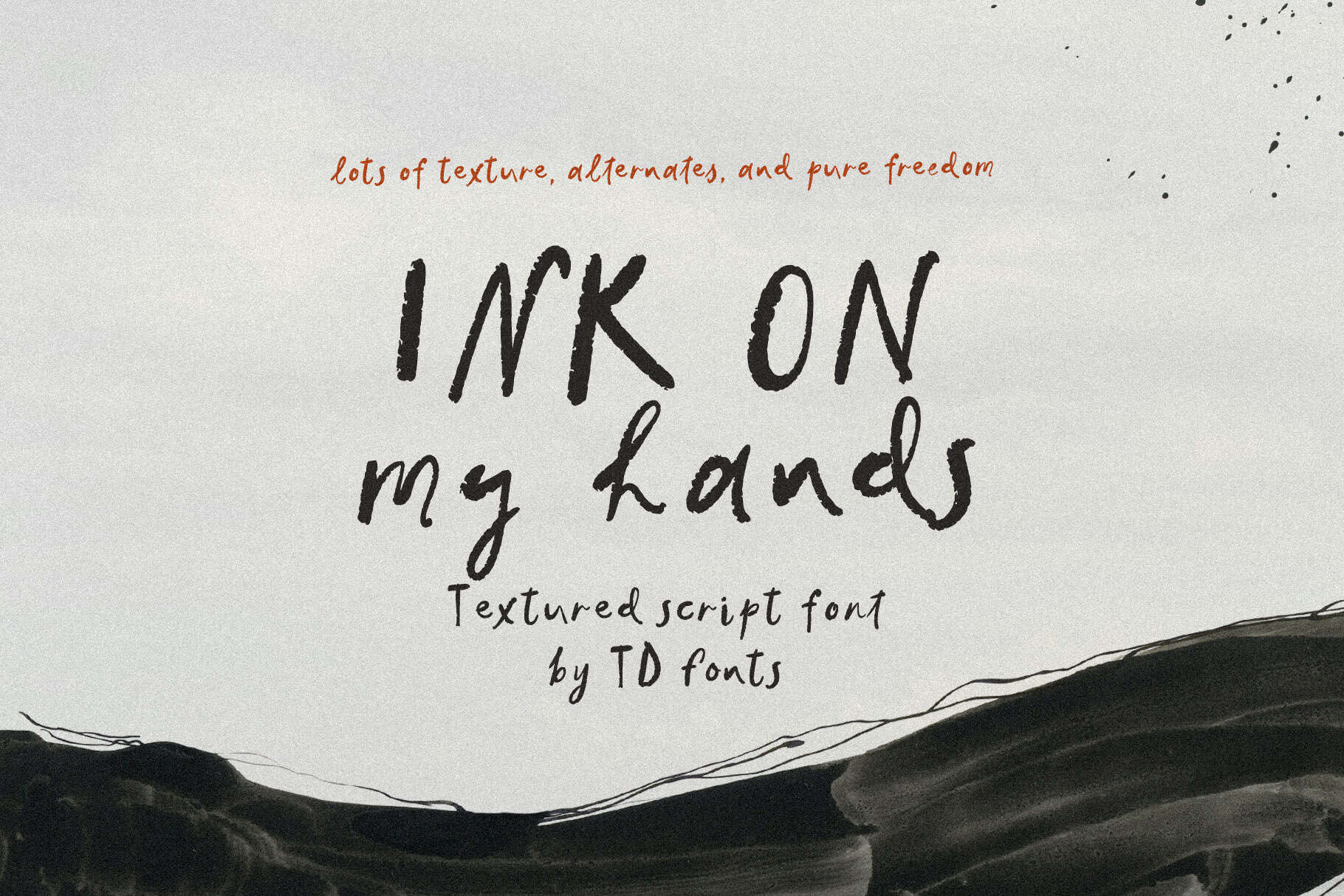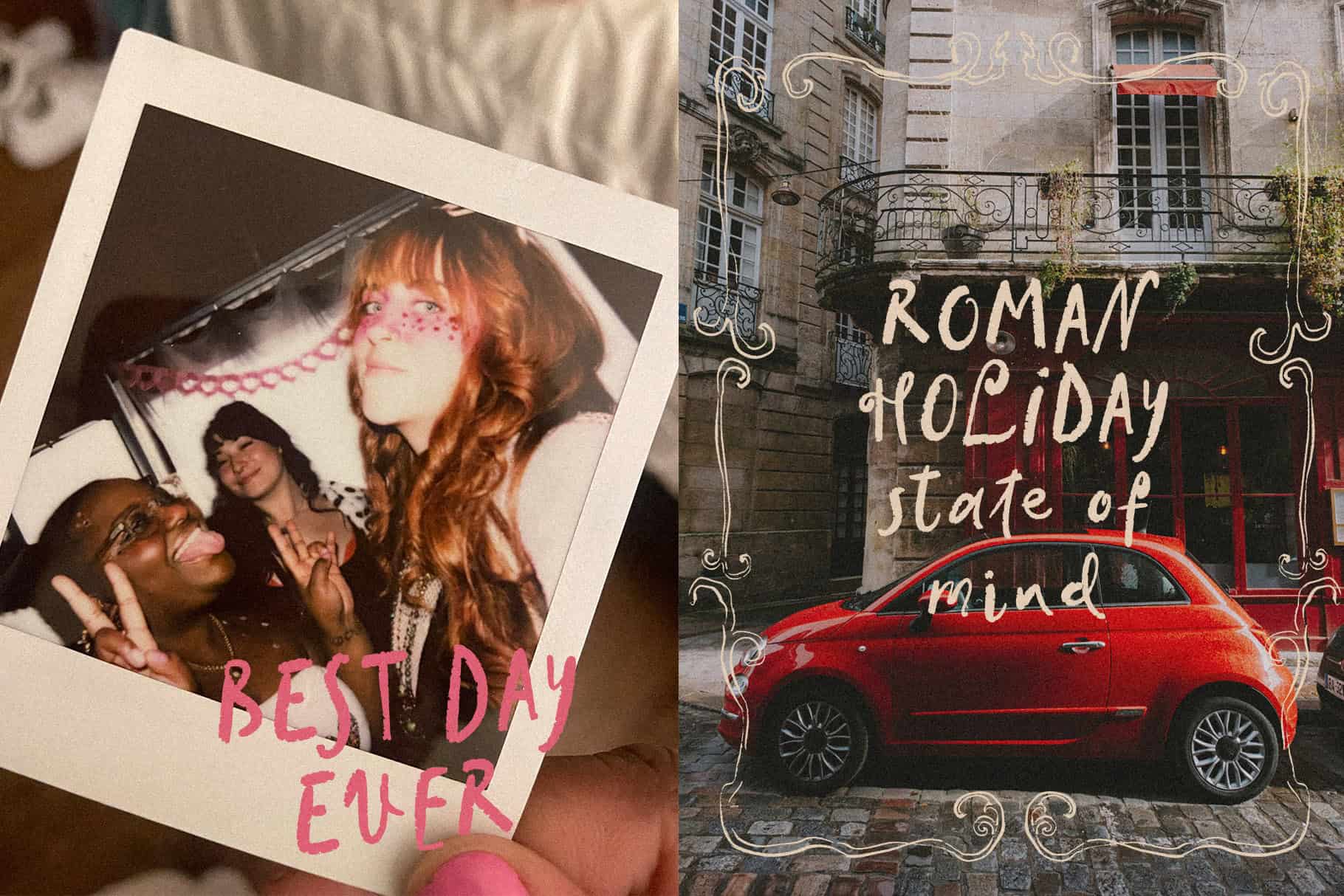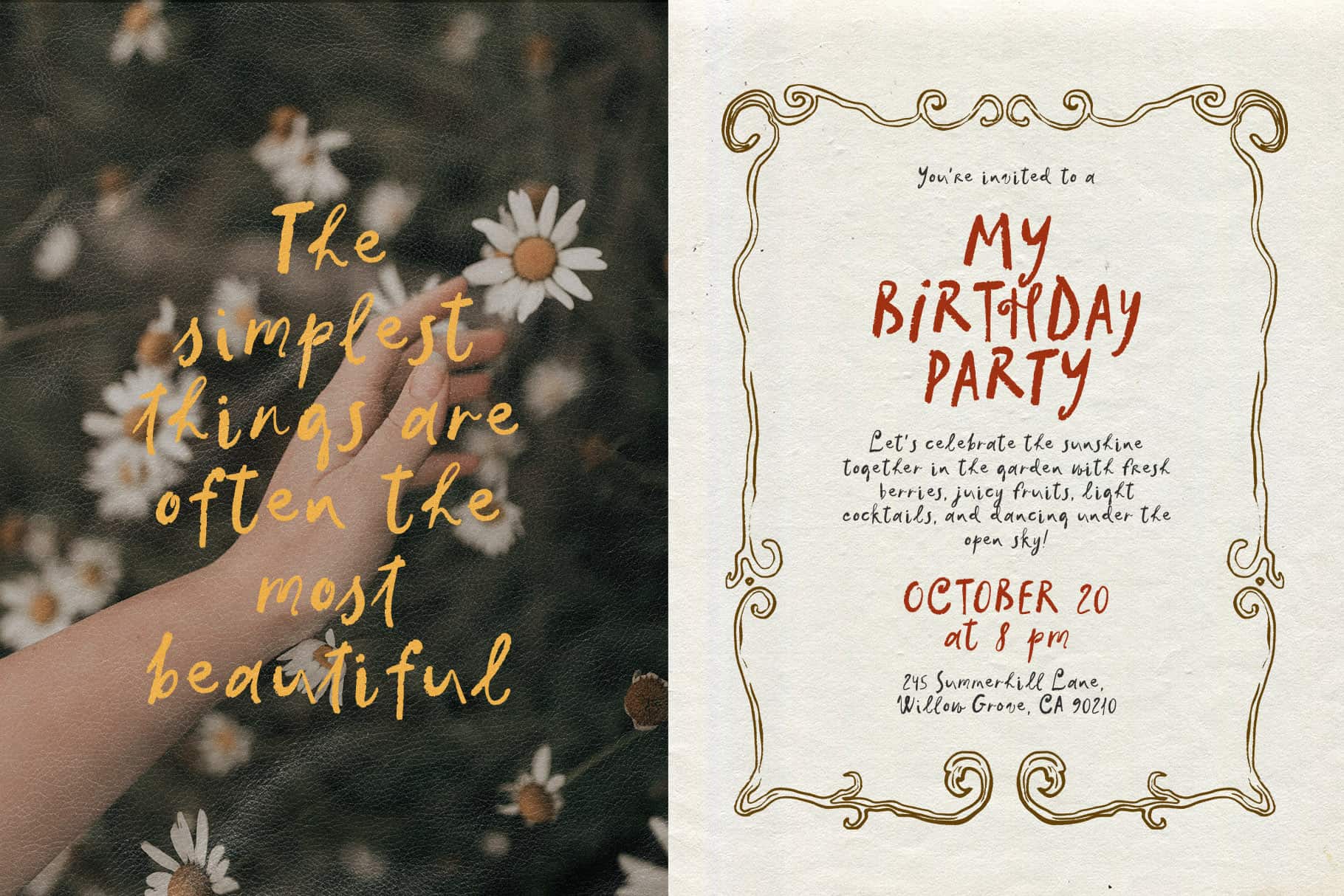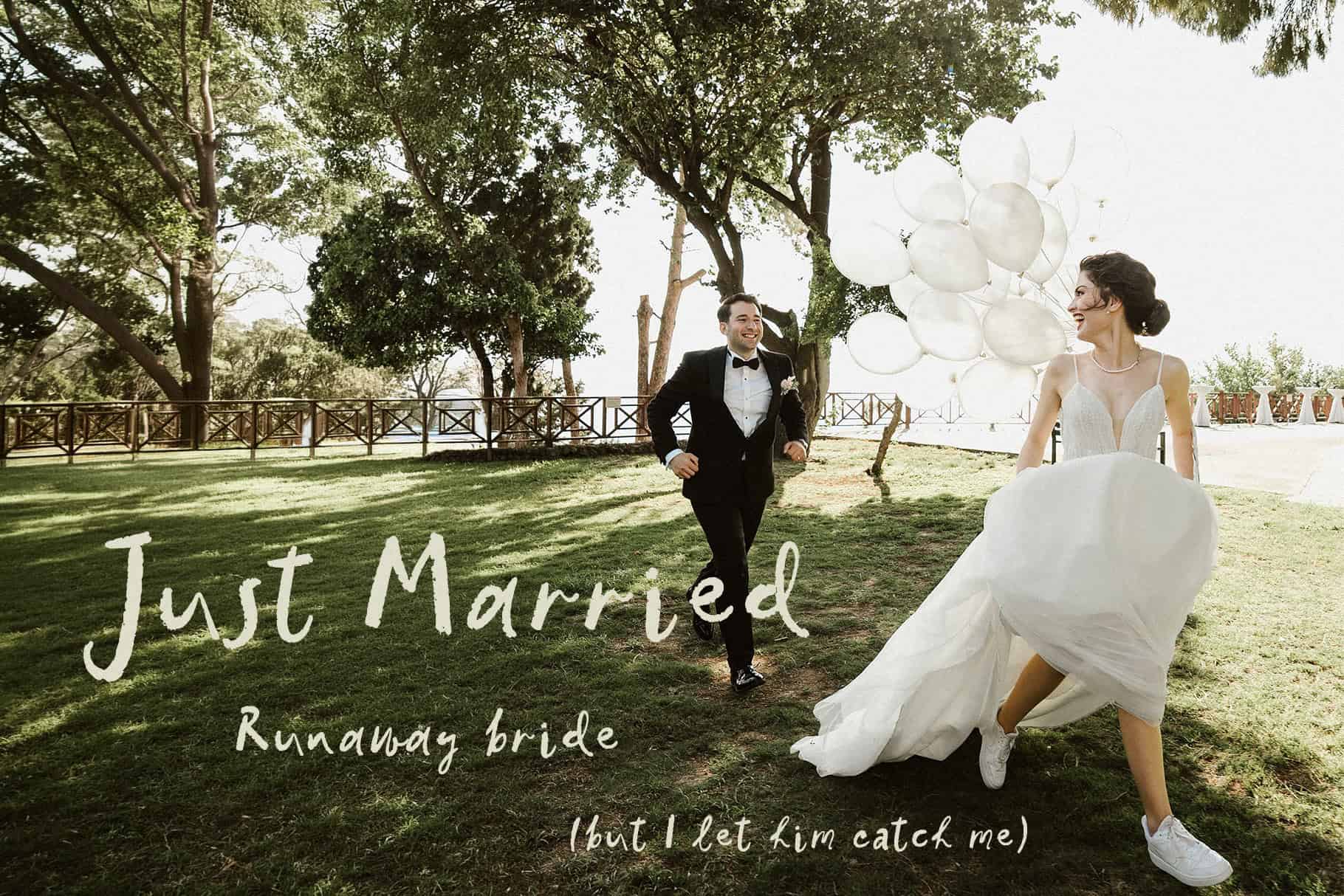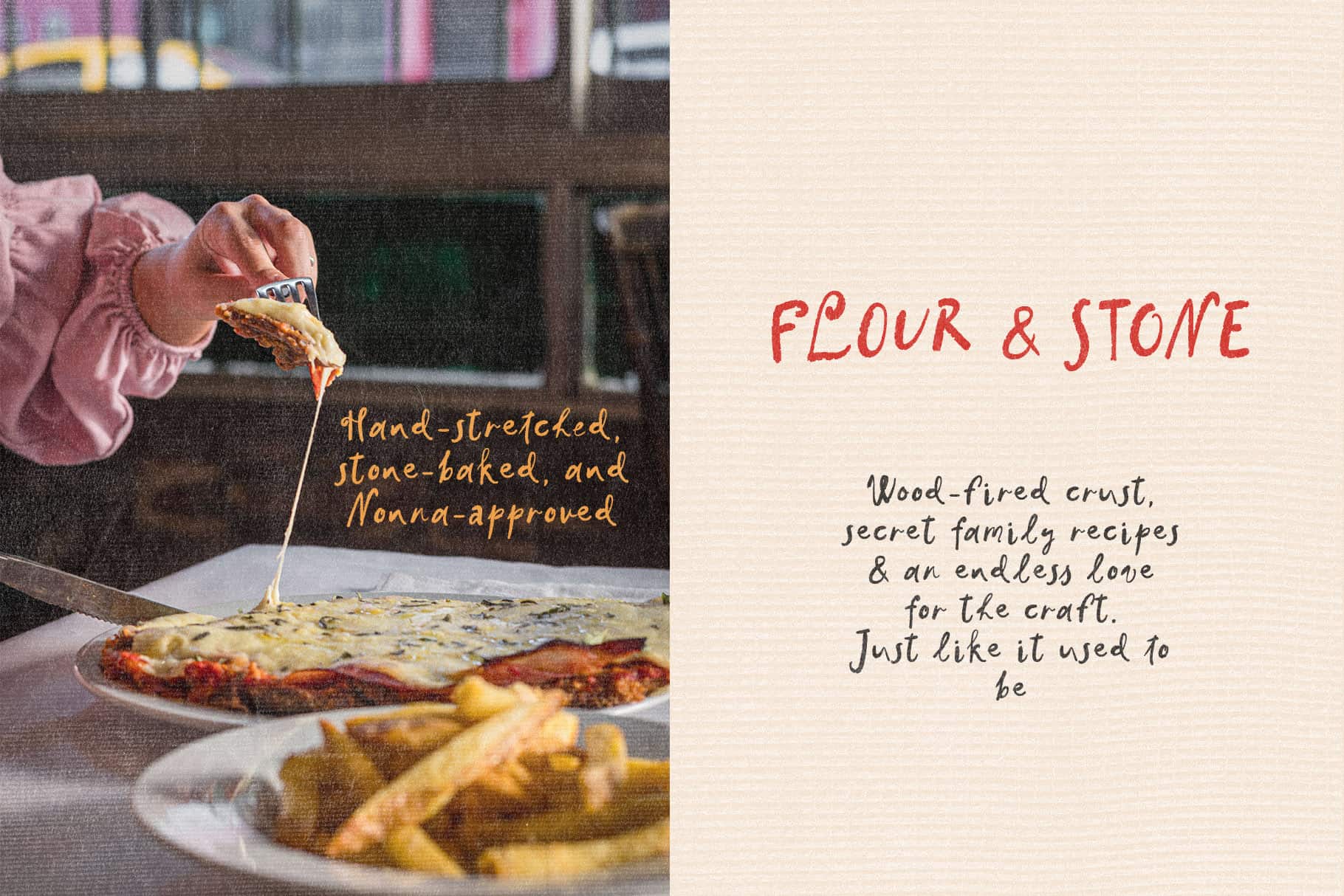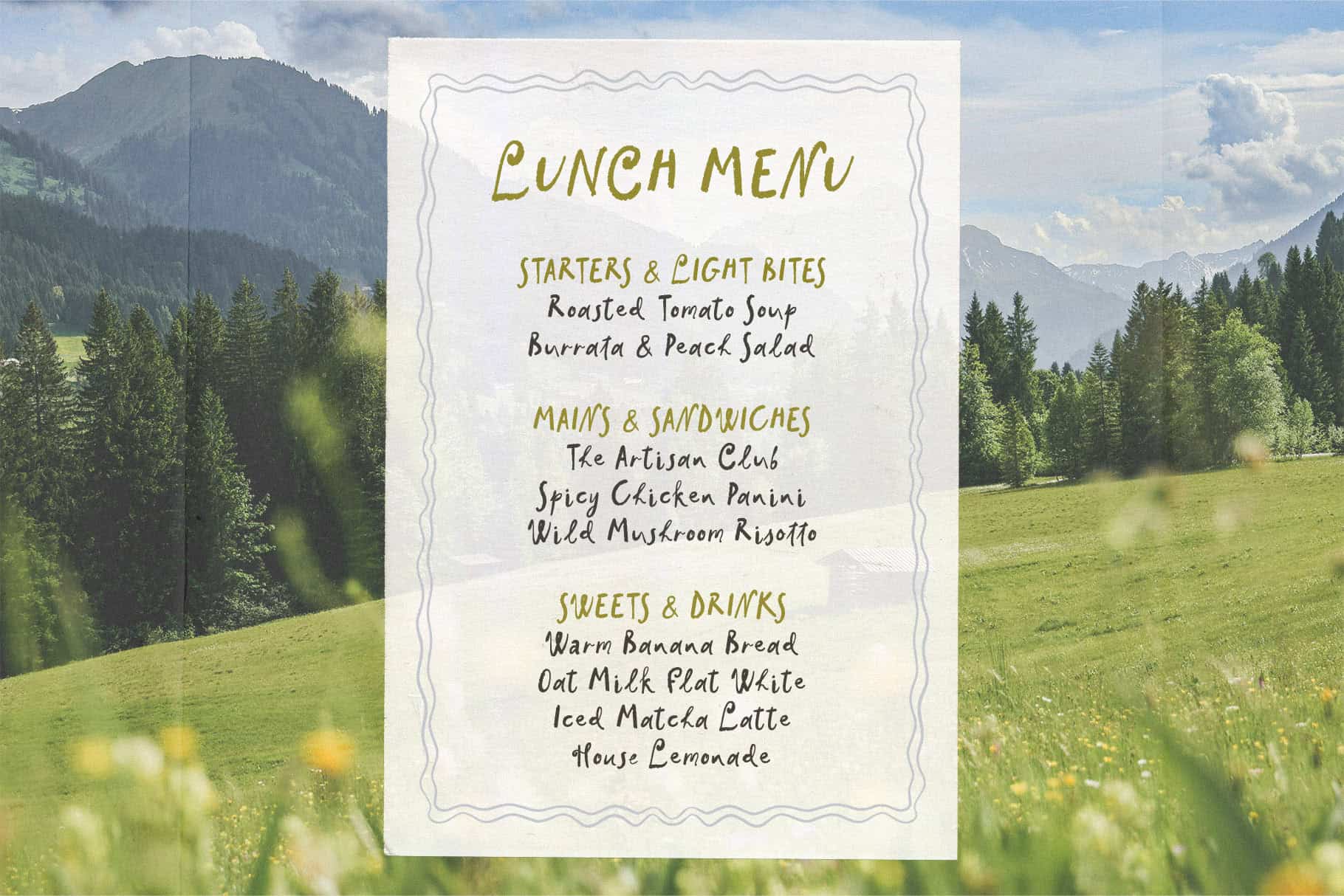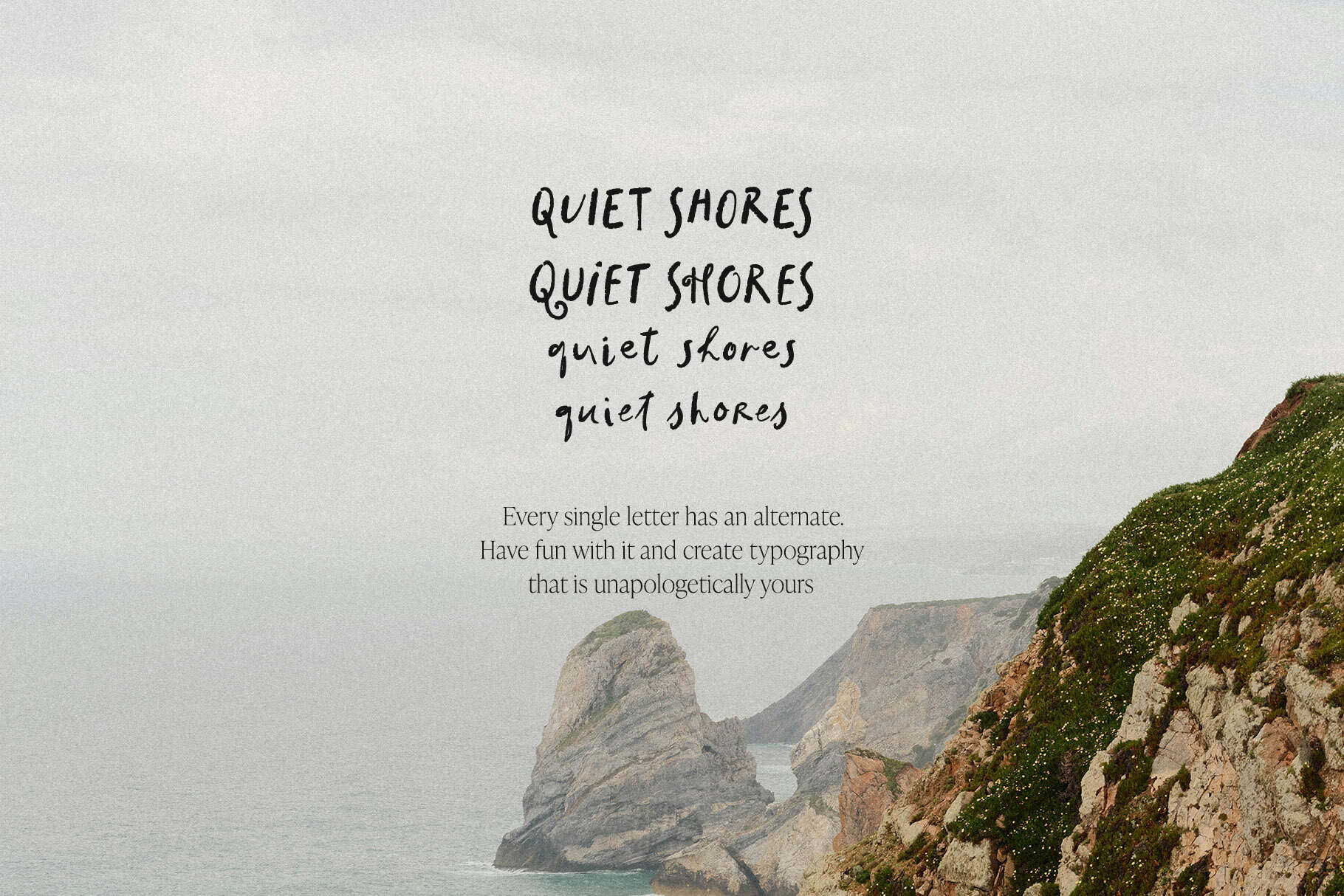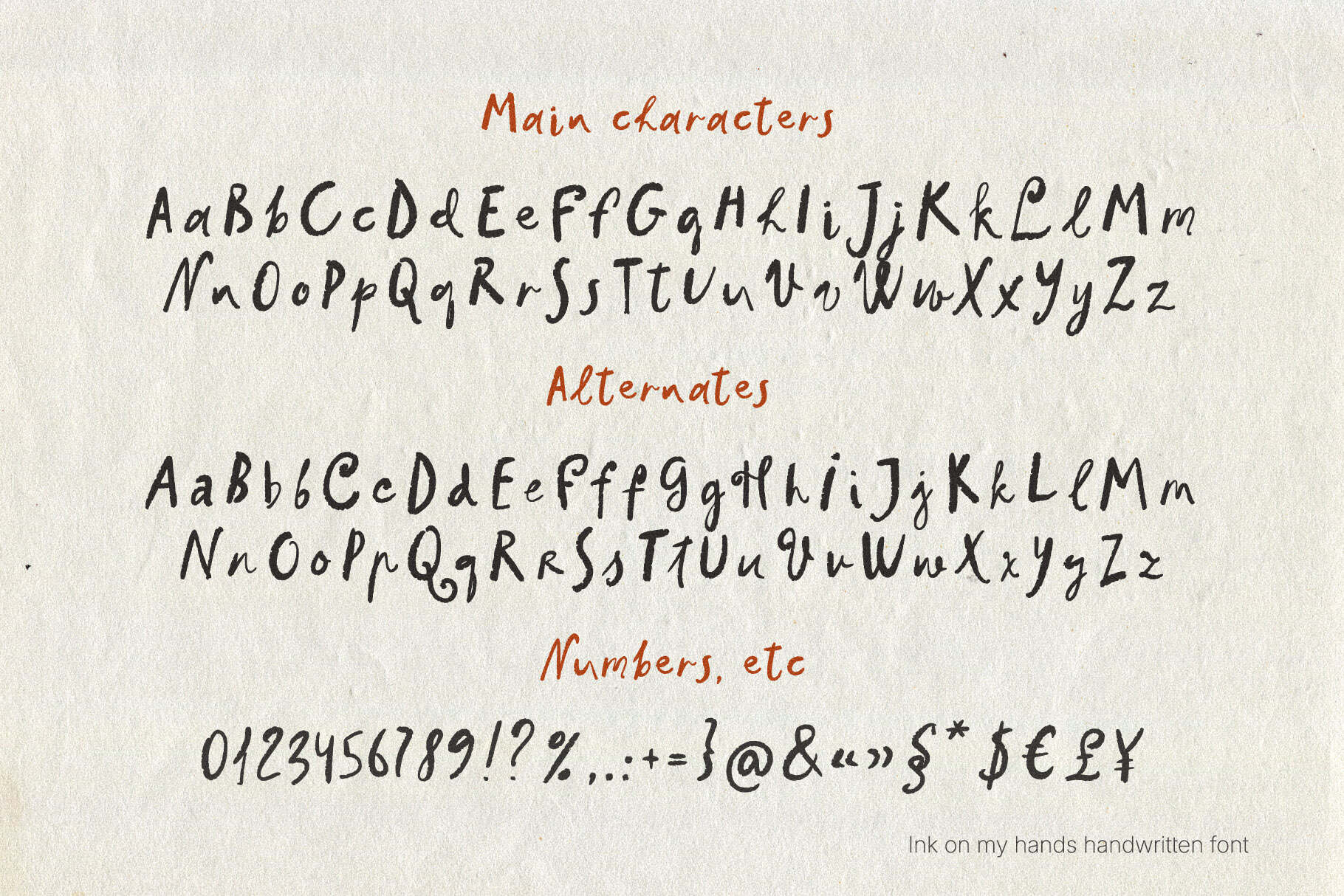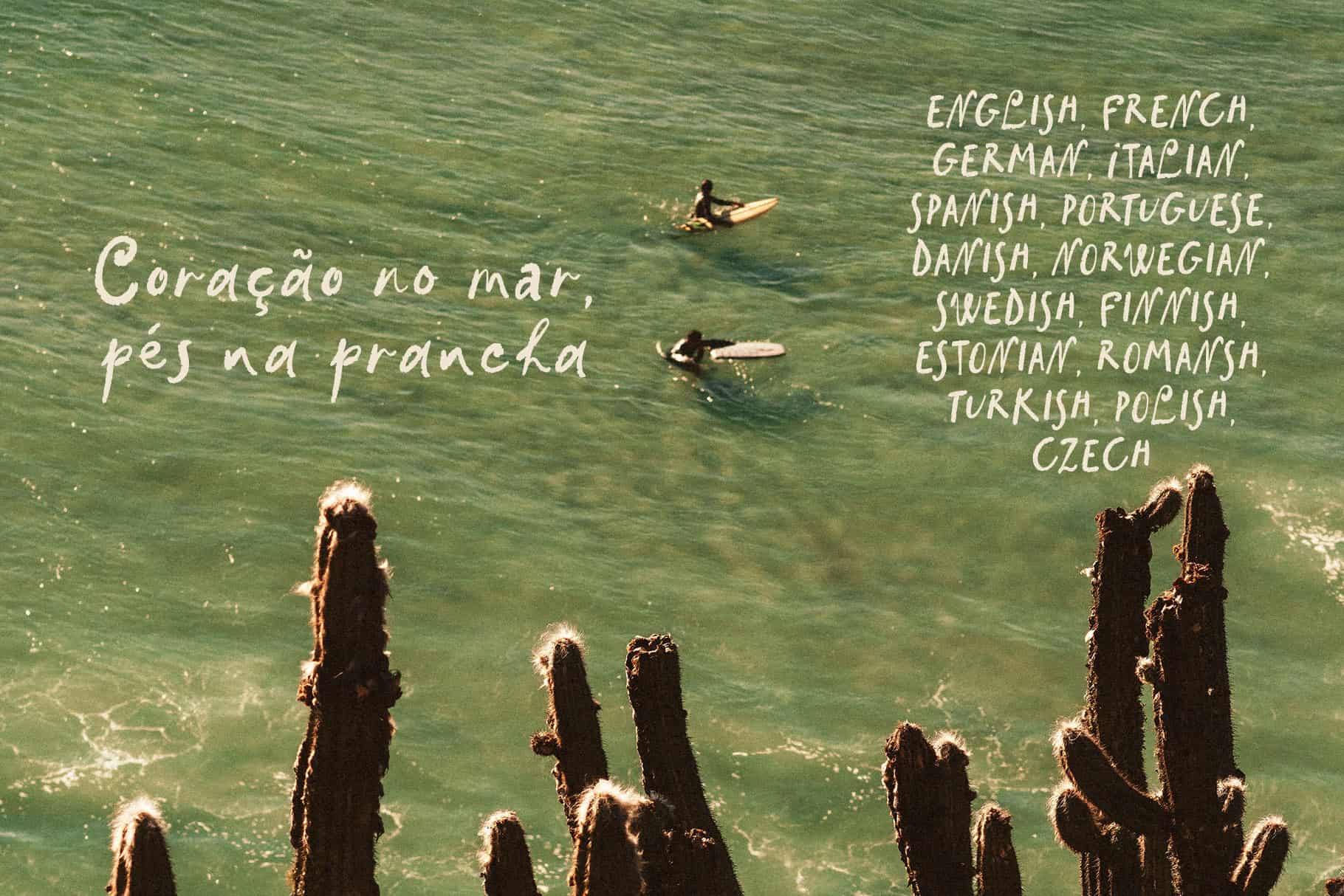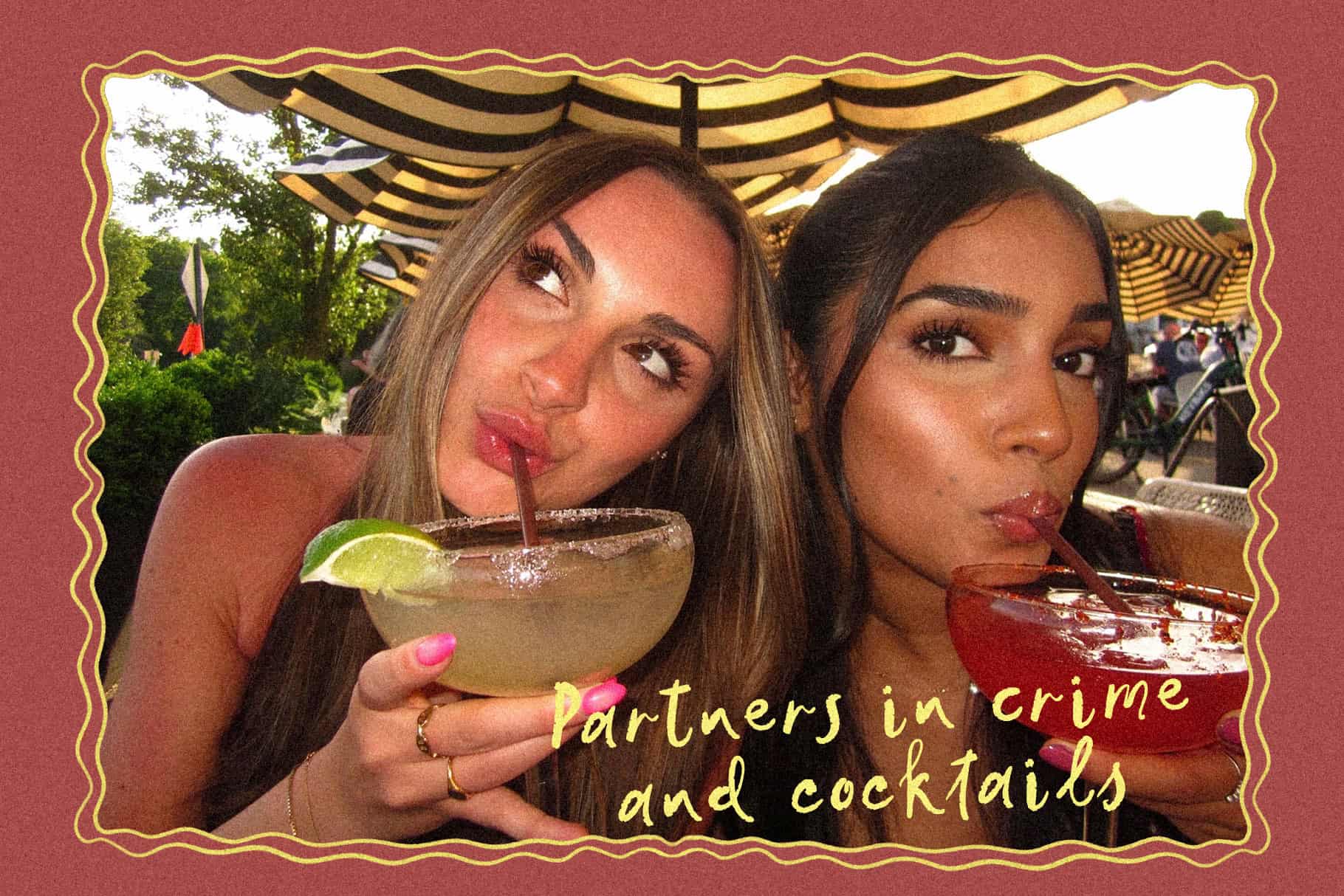
Ink on my Hands handwritten script font — messy textured typeface
Ink on my Hands is a bold, textured handwritten script font with a raw, quirky character — wonderfully messy, unapologetically authentic, and full of the rebellious energy of a fast-paced diary entry. Drawn by hand with real ink, it carries the gritty, tactile feeling of ink bleeding into paper — the kind of script that genuinely looks like real handwriting, not a font pretending to be one
A raw, inky script font made by hand
Ink on my Hands was drawn by hand with real ink and a textured pen, then carefully digitized to preserve the gritty, tactile feeling of ink bleeding into paper. It doesn’t just imitate handwriting — it is handwriting, right down to the pressure changes, the slight wobble, the places where the pen almost ran out of ink. It carries the energy of genuine, dynamic handwriting without feeling forced — rough edges, irregular baselines, and a natural, deliciously messy rhythm. Nothing here was engineered to be perfect.
Design features
This font thrives wherever design needs to feel personal, raw, and handcrafted, not generated. Every letter comes with at least one alternate glyph, so you can mix, match, and build your own truly unique typography for every project. It carries a striking editorial layout with the same expressive ease as organic packaging, boutique labels, and edgy fashion branding.
Where this font works best
Ink on my Hands fits naturally into editorial headlines, indie zines, and magazine layouts. It works beautifully for social media quotes, Instagram aesthetic posts, and Pinterest graphics — as well as travel content and personal photo captions, the kind of scrawled note you’d write on the back of a polaroid. It’s a strong choice for modern wedding invitations and greeting cards, organic branding, artisan packaging, and craft labels. For restaurant and café branding, it brings warmth to menus and signage — think wood-fired pizza joints and family-run kitchens with a story to tell. It also suits streetwear apparel, hang tags, music album covers, gig posters, and any digital design that calls for a raw, personal feel.
Mood & personality
Edgy without being unreadable. Messy without losing its structure. Ink on my Hands feels like a hasty note scrawled on a polaroid, a striking headline in an underground fashion zine, or the logo on a jar of handmade organic clay. The kind of type that makes a design feel like it was made by someone who really meant it, leaving ink on their hands in the process. It’s the rare script font people mistake for someone’s actual handwriting — because, in a way, it is.
- Alternate glyphs for every letter — mix, match, and craft your own unique typography
Does this font include alternate letterforms?
Yes — every letter has at least one alternate glyph, so no two words have to look the same.
Is this font suitable for restaurant or menu design?
Yes, its warm, handwritten texture works especially well for café and restaurant branding, menus, and signage with a craft, homemade feel.